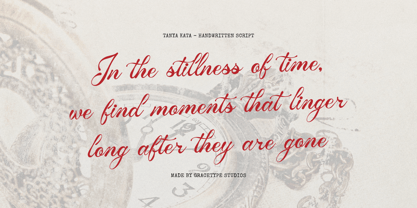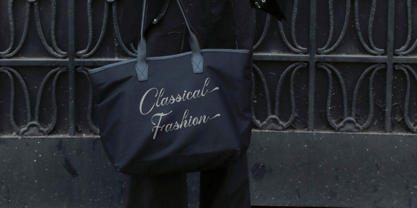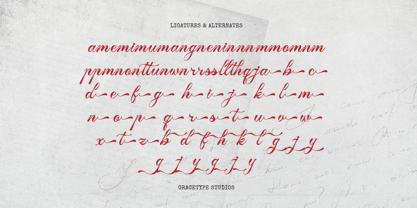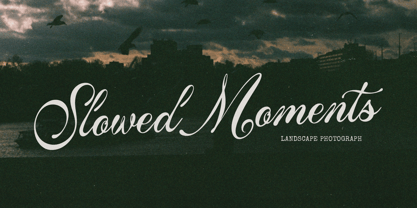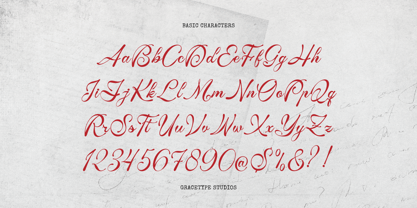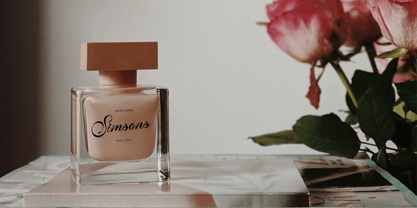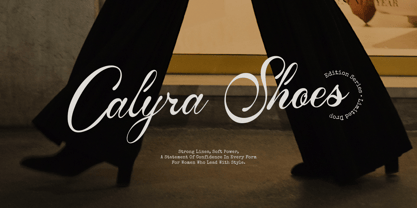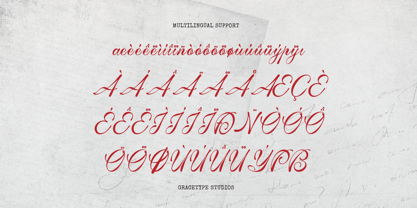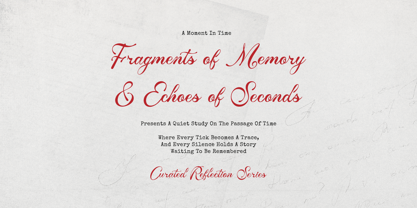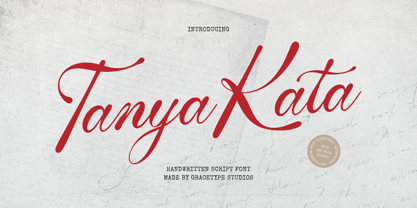
Tanya Kata
Tanya Kata | Handwritten Script, from Gracetypestudio, suitable for any projects such as: logos, branding projects, homeware designs, product packaging, mugs, quotes, posters, shopping bags, t-shirts, book covers, name card, invitation cards, greeting cards, label, photography, watermark, special events, and all your other lovely projects that need a Script taste.